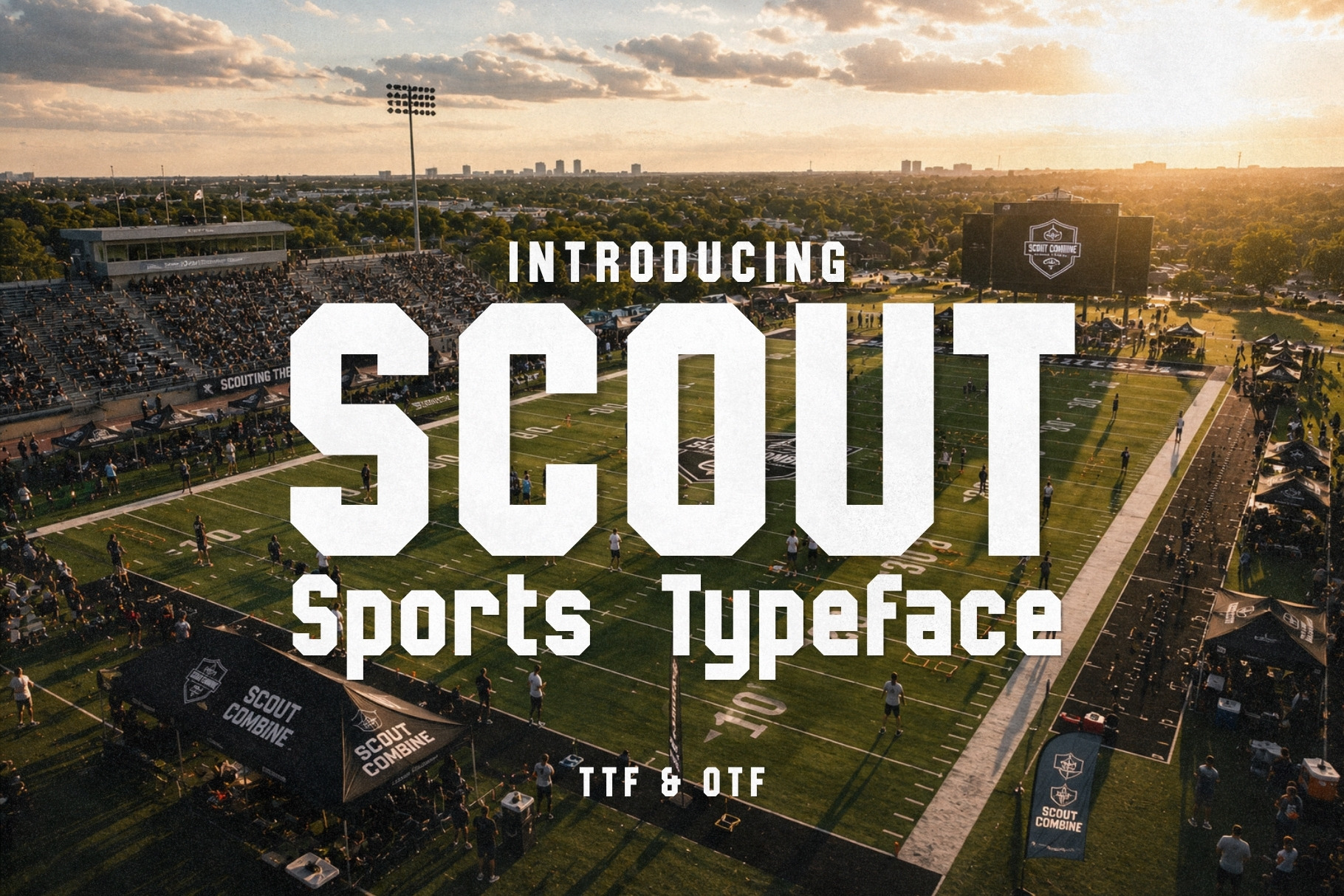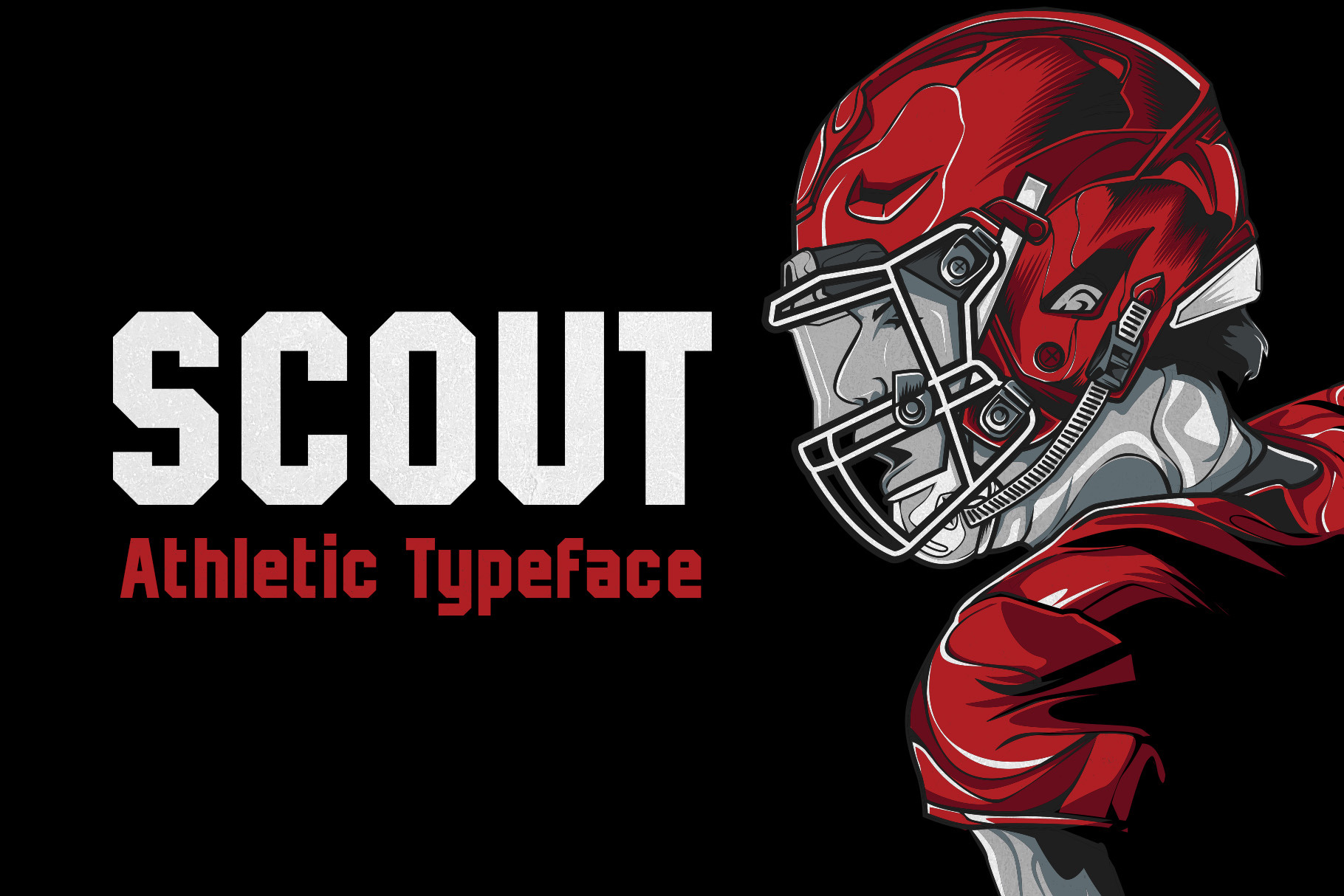
Scout - Athletic Typeface
Scout is a bold, precision-crafted athletic typeface that brings the intensity of competitive sport to every project it touches. Clean lines and sharp geometry give it a versatile authority that works equally hard across professional branding and independent creative work.
From jersey numbers to stadium signage, Scout is built for the full range of sports design — emblems, team logos, posters, apparel graphics, magazine headlines, and product labels. Its commanding presence scales beautifully from small badge details to large-format displays without losing an ounce of impact.